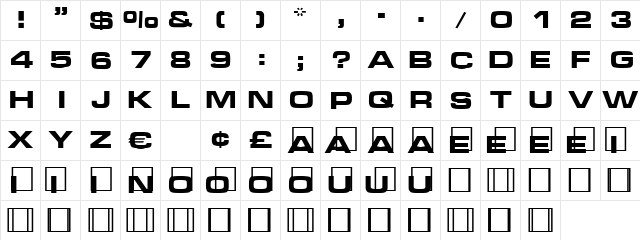
Meteor Regular
Design Context for Meteor Typeface
Meteor takes a measured approach to typography — its balanced proportions and neutral character make it a reliable workhorse for both digital and print work.